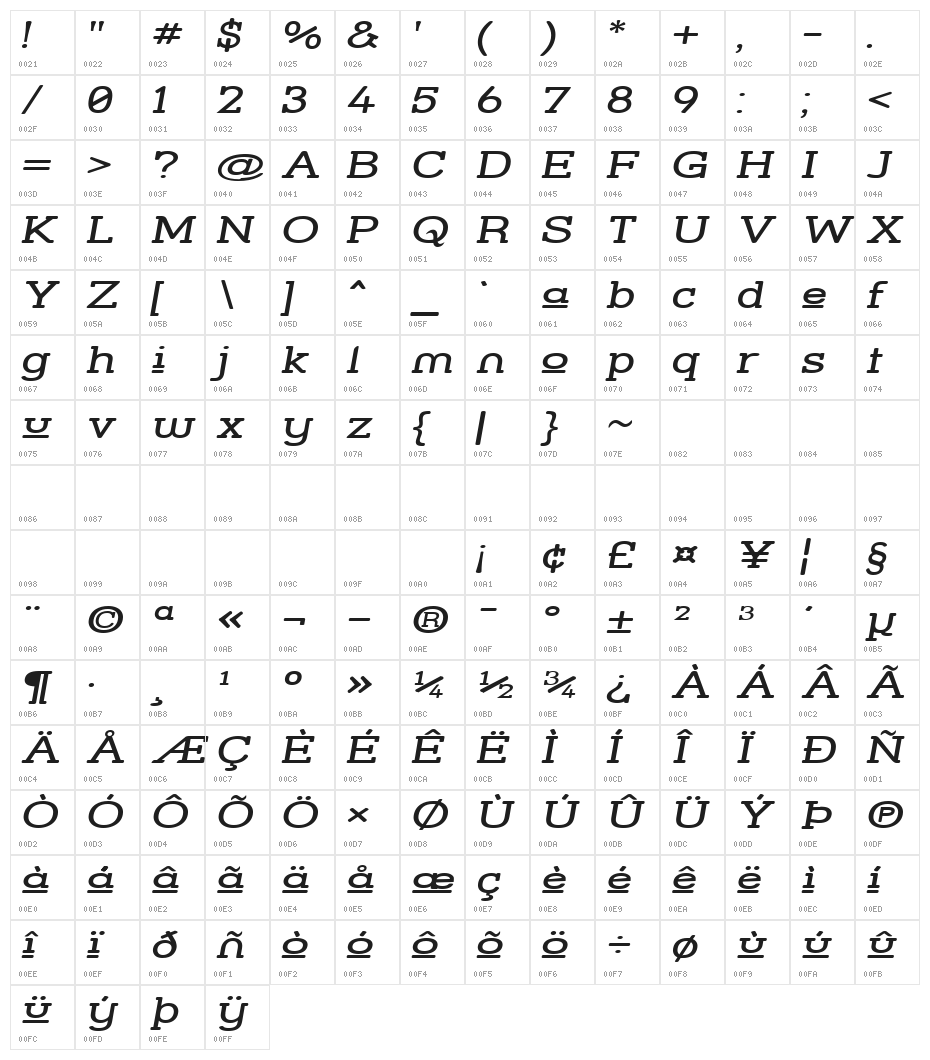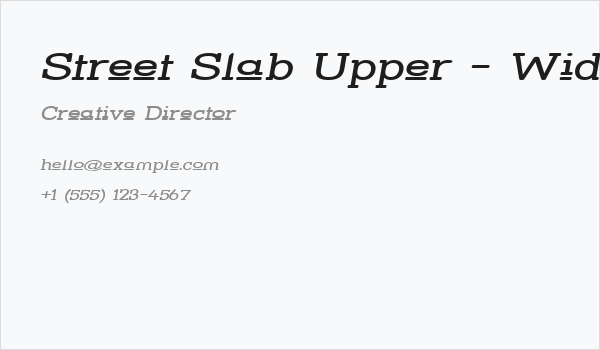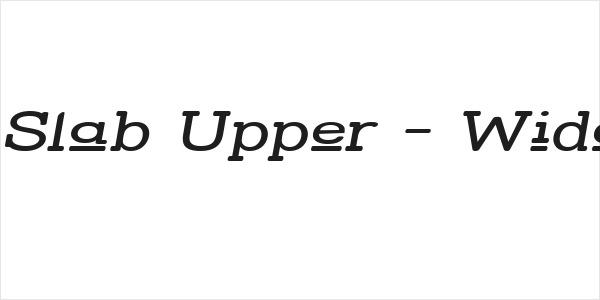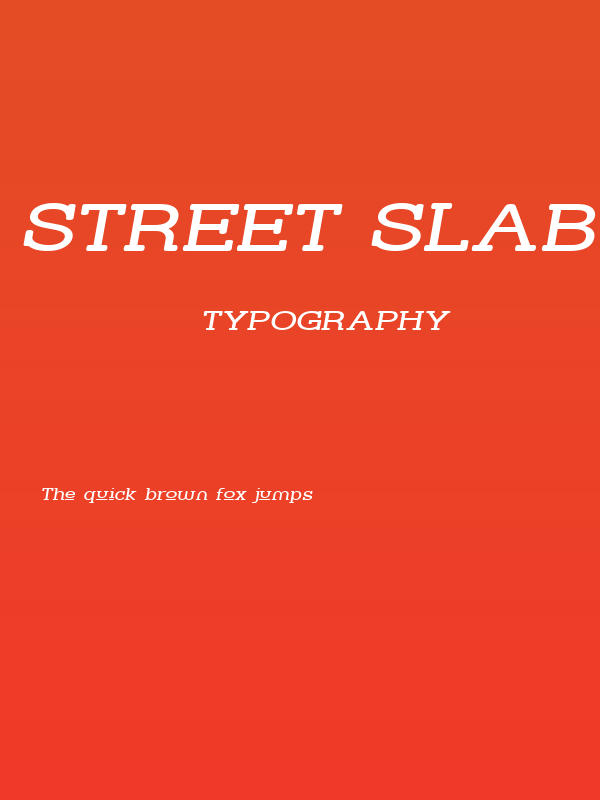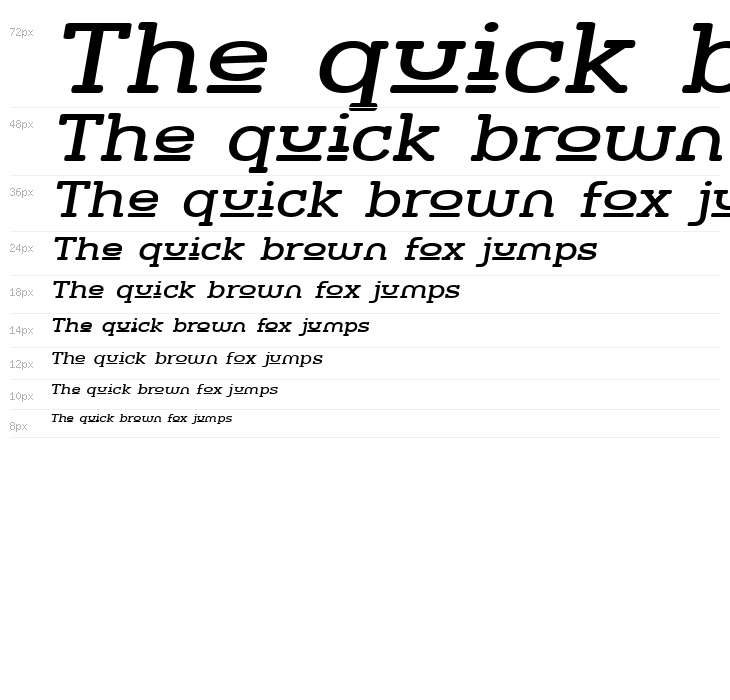
Street Slab Upper - Wide Italic Font
Street Slab Upper - Wide Italic Description
This font features a bold and assertive slab serif style with a distinct italic slant, giving it a dynamic and modern appearance. The characters are wide, providing a sense of stability and strength, while the slab serifs add a touch of classic elegance. The uppercase and lowercase letters maintain a consistent style, with rounded edges that soften the overall look. The numerals and special characters are designed to match the font's robust and wide characteristics, ensuring uniformity across all elements. This font is ideal for making a strong visual impact, combining traditional serif elements with a contemporary twist.
| Proposed Projects | Ideal for branding, headlines, posters, and any design requiring a strong, impactful typeface. |